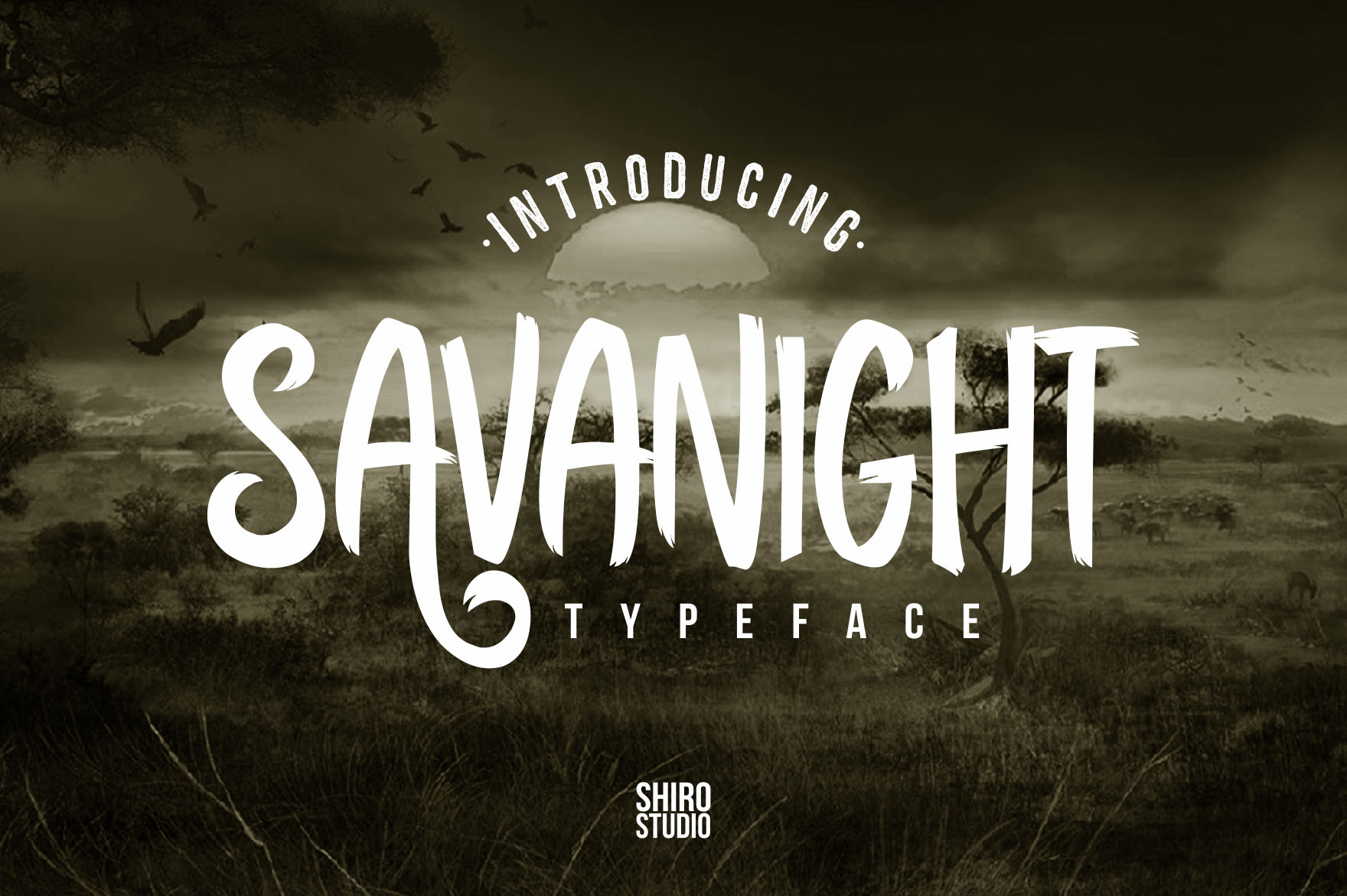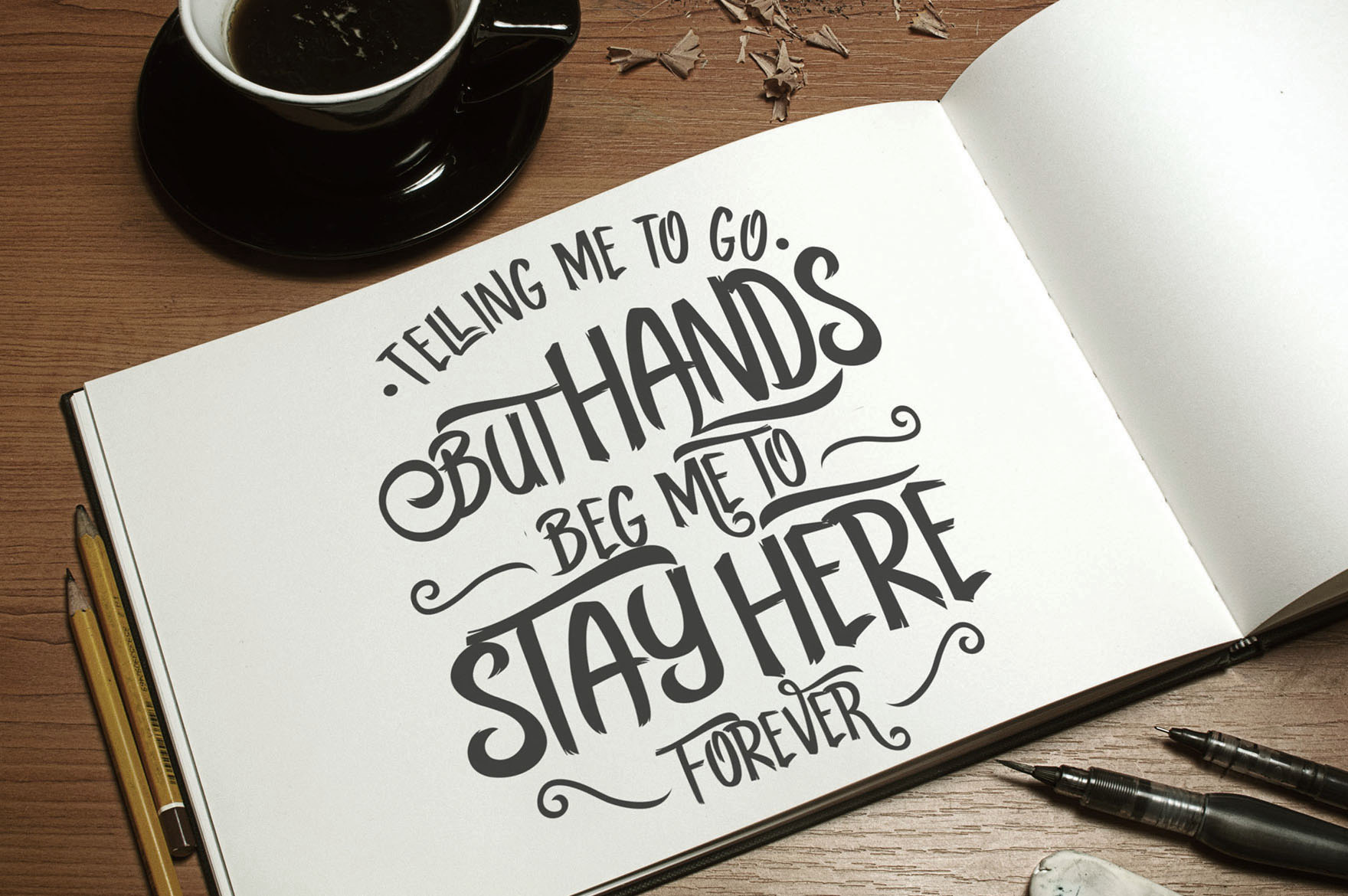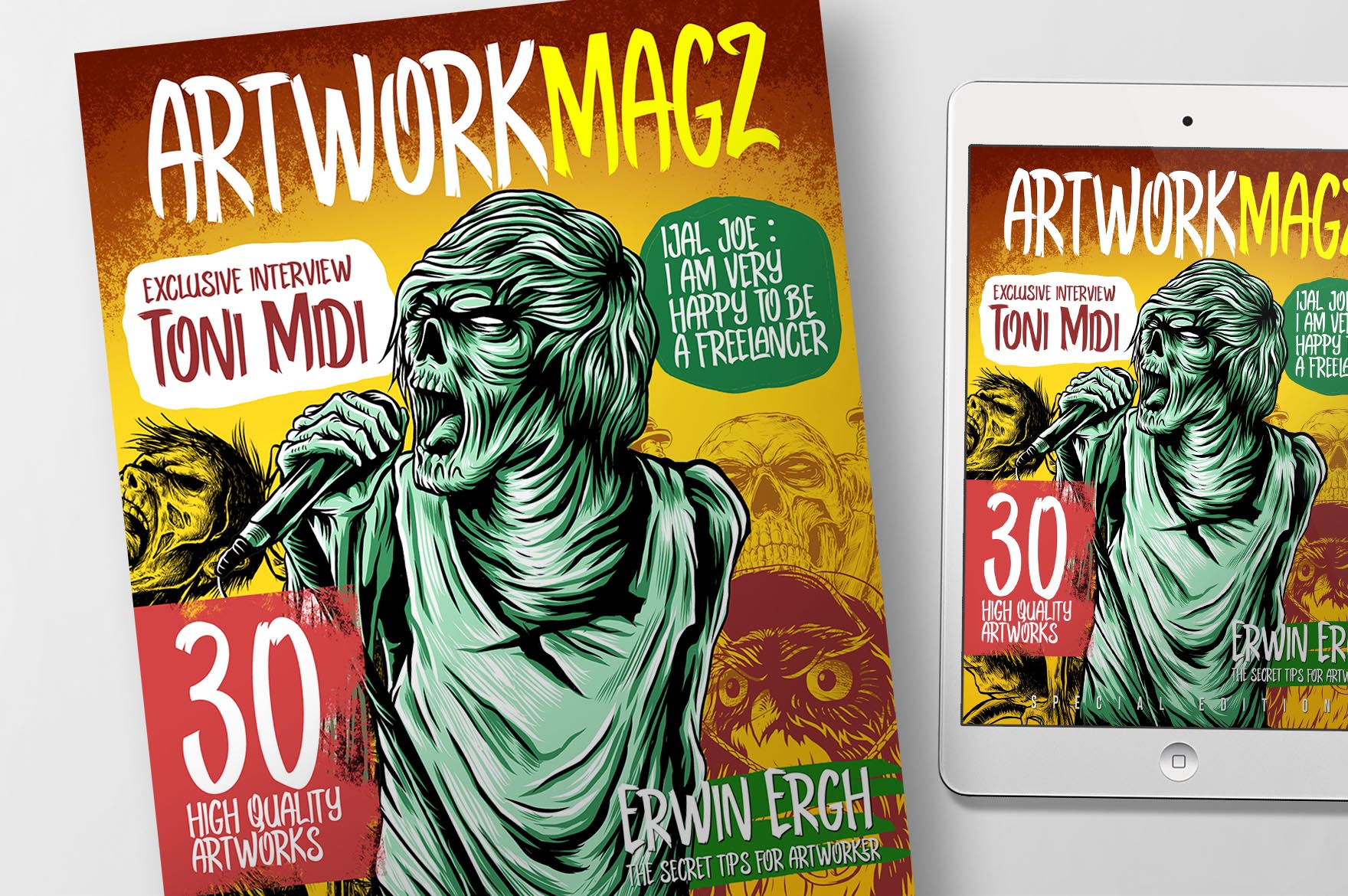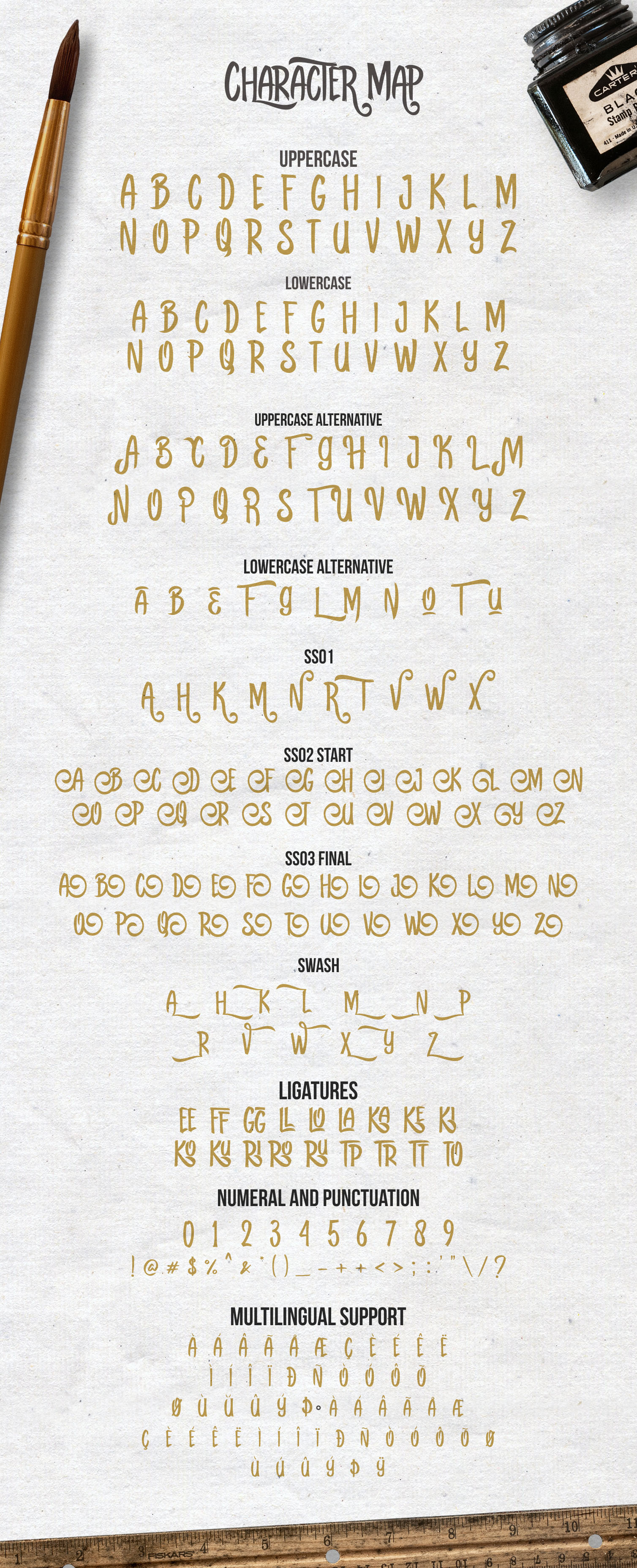
Savanight Script Font
The Savanight Typeface Introducing a new cool display font with cool characters and OpenType Features. The Savanight Typeface os very cool for branding, poster, logo, and any other artworks.
| Classification: | Brush Fonts, Playful / Fun Fonts, Script Fonts |